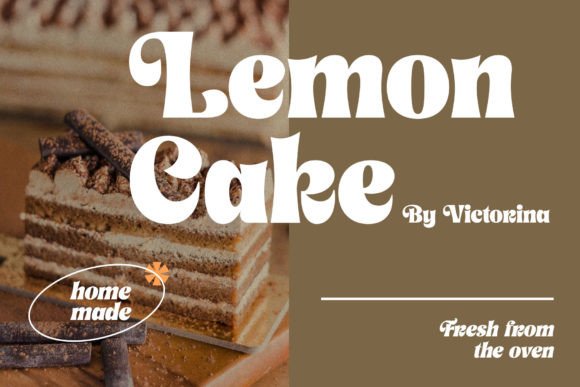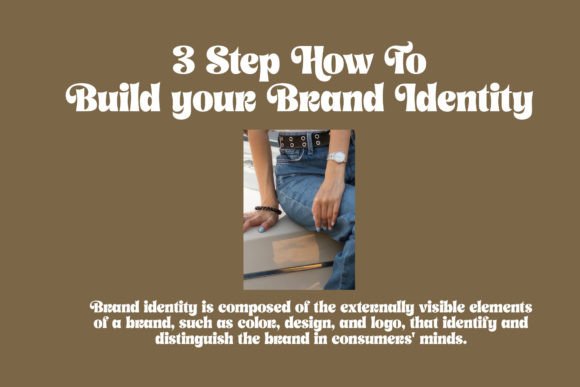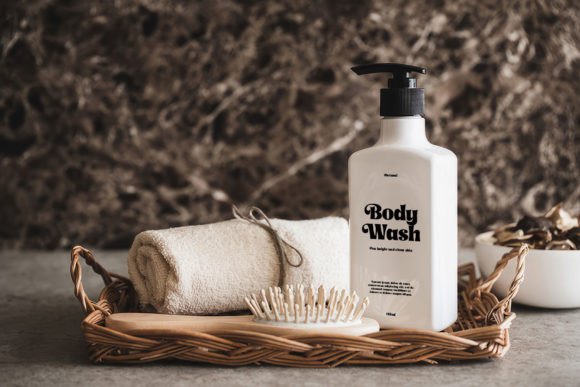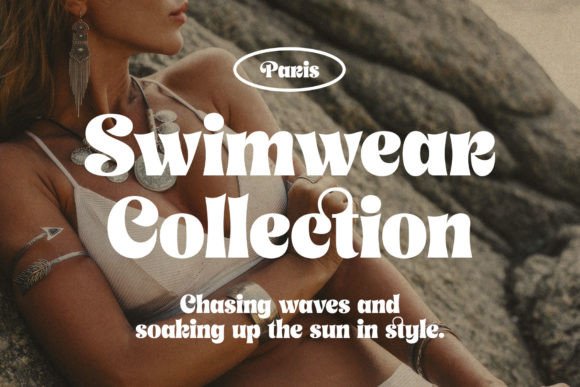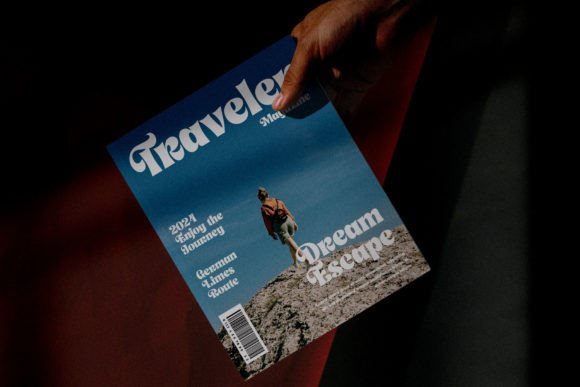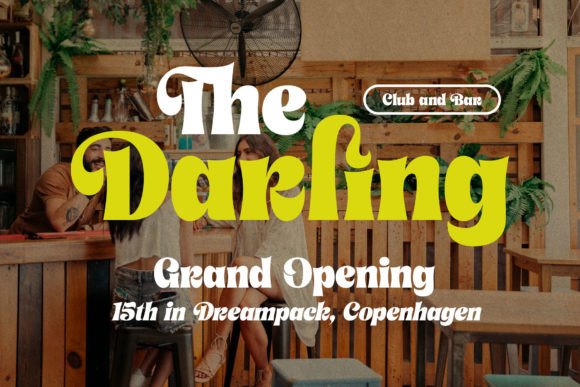
Introduction to Pink Floryn Font Font
Fonts play a crucial role in design, and the Pink Floryn Font font is a typeface that brings both character and versatility to any project. Whether you’re working on a branding project, a website, or a print design, the Pink Floryn Font font offers a unique style that can elevate your work.
Pink Floryn is a beautiful font with that bold curve that makes it look Unique, elegant, modern, and versatile.
Pink Floryn is a beautiful choice for any creative endeavor, creating elegant, modern, chic, lifestyle designs such as logos, titles, covers, branding, display and magazine, and more This font is PUA encoded which means you can access all of the amazing glyphs and ligatures with ease.
Key Features of Pink Floryn Font Font
Why Choose Pink Floryn Font Font?
The Pink Floryn Font font is more than just a typeface – it’s a design tool that helps you communicate your message with style and clarity. Its unique character set and versatile design make it suitable for a wide range of applications, from elegant invitations to bold headlines.
With its carefully crafted letterforms and balanced proportions, the Pink Floryn Font font ensures readability and visual appeal across all mediums.
What makes Pink Floryn Font font special?
The Pink Floryn Font font stands out with its unique design, exceptional readability, and versatility across various design applications.